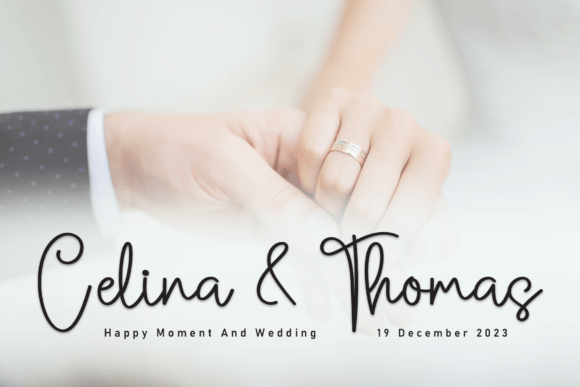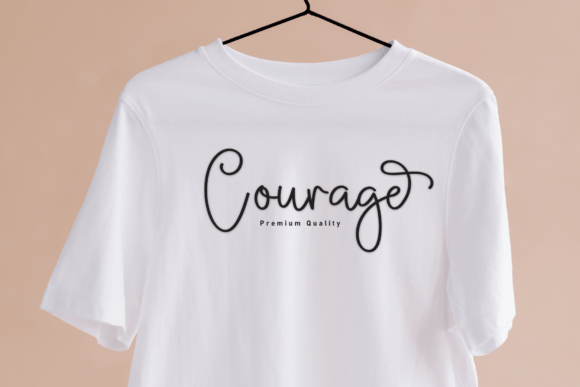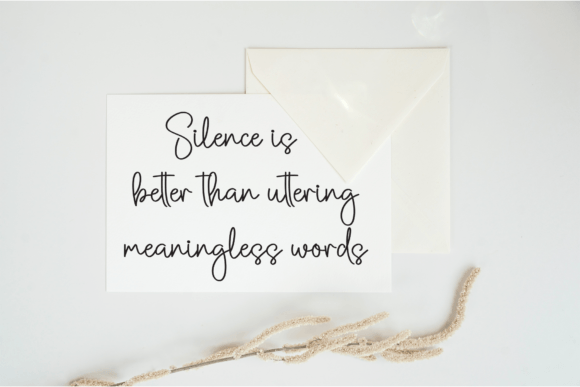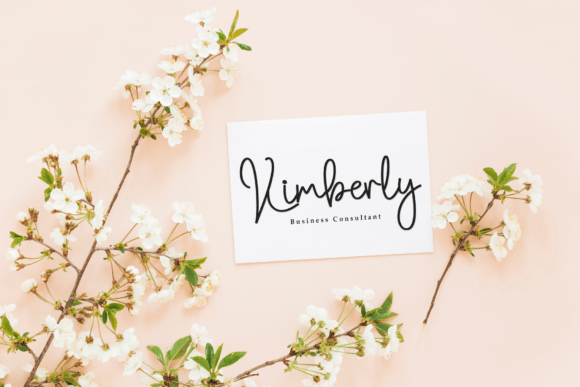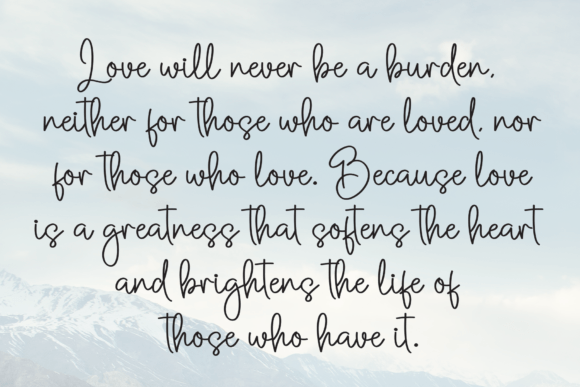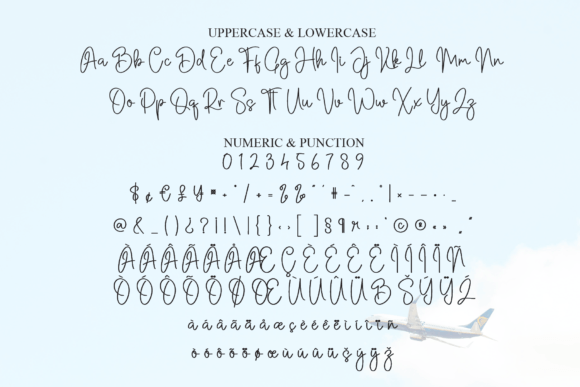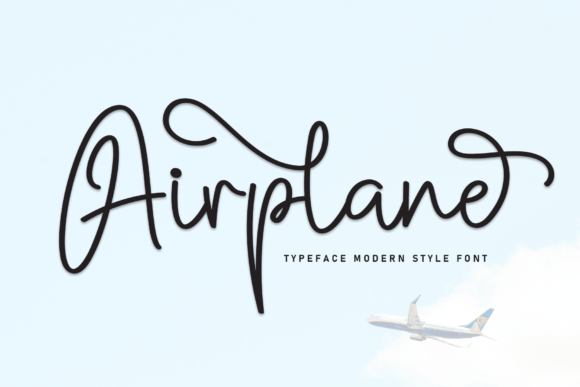
Introducing Airplane Font: Elevate Your Creativity with Elegance
Are you a designer, crafter, or DIY enthusiast looking for a font that can add a touch of magic to your creative projects? Look no further than Airplane Font, a beautiful script font designed to bring elegance and sophistication to your work. In this article, we’ll explore the features and benefits of Airplane Font, and show you how it can help you turn your creative ideas into stunning works of art.
The Story Behind Airplane Font
Airplane Font is a carefully crafted script font that is designed to evoke a sense of elegance and refinement. With its flowing lines and intricate details, this font is perfect for anyone looking to add a touch of sophistication to their creative projects. Whether you’re working on a DIY project, creating social media content, or designing a brand identity, Airplane Font is the perfect choice.
Key Features of Airplane Font
• Magical Script Font: Airplane Font is a script font that is designed to add a touch of magic to your creative projects. With its flowing lines and intricate details, this font is perfect for creating beautiful and eye-catching designs.
• Elegant and Refined: Airplane Font is designed to evoke a sense of elegance and refinement. Whether you’re working on a DIY project or designing a brand identity, this font is perfect for creating sophisticated and professional-looking designs.
• Versatile: Airplane Font is a versatile font that can be used for a wide range of creative projects. Whether you’re creating social media content, designing a logo, or working on a DIY project, this font is perfect for adding a touch of elegance and sophistication.
Uses for Airplane Font
Airplane Font is a versatile font that can be used for a wide range of creative projects. Here are some ideas to get you started:
• Instagram and Social Media: Use Airplane Font to create beautiful and eye-catching social media posts. Whether you’re promoting a product, sharing a quote, or simply showcasing your creativity, this font is perfect for adding a touch of elegance and sophistication.
• DIY Projects: Airplane Font is perfect for DIY projects, such as crafting, scrapbooking, and paper crafting. Use this font to add a touch of elegance and sophistication to your projects.
• Calligraphy and Hand Lettering: Airplane Font is a beautiful script font that is perfect for calligraphy and hand lettering projects. Use this font to create stunning and intricate designs.
• Branding and Identity: Use Airplane Font to create a sophisticated and professional-looking brand identity. Whether you’re designing a logo, creating business cards, or developing a website, this font is perfect for adding a touch of elegance and refinement.
Tips for Using Airplane Font
Here are some tips for using Airplane Font in your creative projects:
• Experiment with Different Sizes: Airplane Font looks great in a variety of sizes. Experiment with different sizes to find the one that works best for your project.
• Pair with Other Fonts: Airplane Font pairs well with other fonts. Try pairing it with a bold font for a striking contrast.
• Use for Headings and Titles: Airplane Font is perfect for headings and titles. Use it to add a touch of elegance and sophistication to your designs.
Airplane Font is a beautiful script font that is designed to add a touch of elegance and sophistication to your creative projects. With its flowing lines and intricate details, this font is perfect for designers, crafters, and DIY enthusiasts looking to create stunning and eye-catching designs. Whether you’re working on a DIY project, creating social media content, or designing a brand identity, Airplane Font is the perfect choice. So why wait? Download Airplane Font today and start elevating your creativity with elegance!